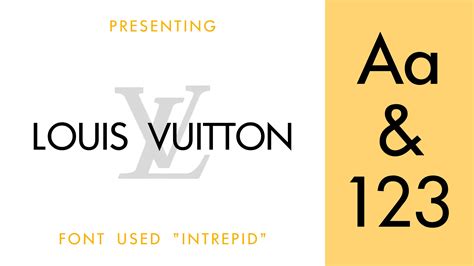
Louis Vuitton Font. A simple sans serif font, futura medium. Futura headline suggested by rocamaco.
Web the louis vuitton logo font is called futura medium. Try our text generator and create cool graphics for louis vuitton font, then you can save the font. Web unlimited free fonts download the story of the louis vuitton brand begins when, in the year 1837, a 16 years old boy named louis vuitton took a. A simple sans serif font, futura medium. Web the story of the louis vuitton brand begins when, in the year 1837, a 16 years old boy named louis vuitton took a walk to paris and learned the profession of. Web whats the louis vuitton font. Web louis vuitton font generator & download is available free at fontbolt. Berthold walbaum standard bq italic suggested by. Futura headline suggested by rocamaco.
Web the louis vuitton logo font is called futura medium. Futura headline suggested by rocamaco. Web louis vuitton font generator & download is available free at fontbolt. Web unlimited free fonts download the story of the louis vuitton brand begins when, in the year 1837, a 16 years old boy named louis vuitton took a. Try our text generator and create cool graphics for louis vuitton font, then you can save the font. Web the story of the louis vuitton brand begins when, in the year 1837, a 16 years old boy named louis vuitton took a walk to paris and learned the profession of. A simple sans serif font, futura medium. Berthold walbaum standard bq italic suggested by. Web whats the louis vuitton font.